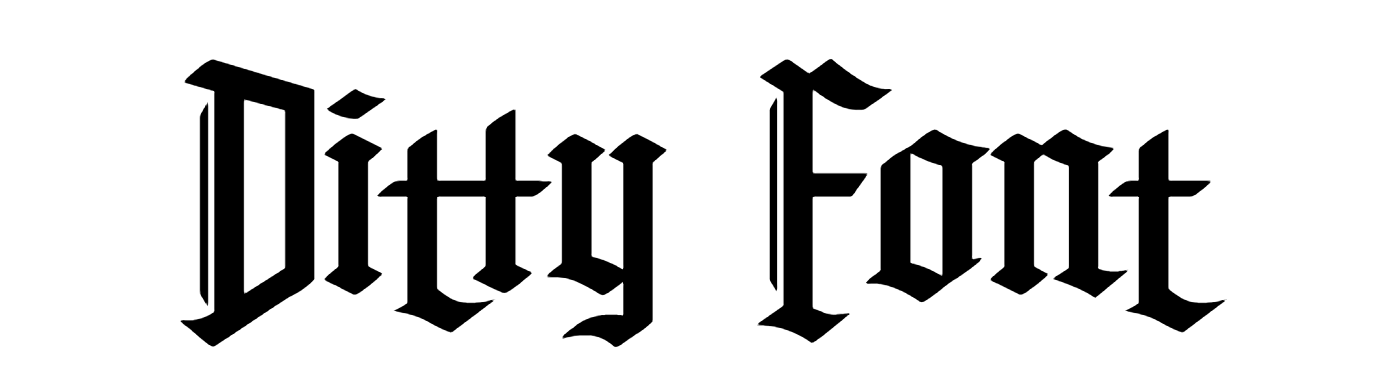
Ditty
Ditty is a gothic font made by fgstudios (2023). Its pointed, heavy strokes give it a dark, dramatic blackletter look. You can download it for free and test it with your own words in the preview above.
- Designer: fgstudios
What You Can Type With Ditty
Ditty covers the full alphabet in upper and lowercase, plus all ten numbers, so you can set names, dates and prices without switching fonts. Common punctuation such as &, !, ? and @ is included as well. It doesn't include accented letters such as é or ñ, which makes it an English-only font.
Ligatures and Smart Letters in Ditty
Where Ditty Works Best
Designers usually reach for fonts like Ditty when they're making tattoos, metal band logos and dark fantasy titles. Blackletter is very hard to read in all caps, so type in normal upper and lowercase.
Who designed Ditty font?
Does Ditty have ligatures?
Yes. Ditty has ligatures that turn on by themselves in most design apps and browsers, so you don't need to do anything special.
Does Ditty support accented letters?
No. Ditty has no accented letters such as é, ñ or ü, so it's best for English text.